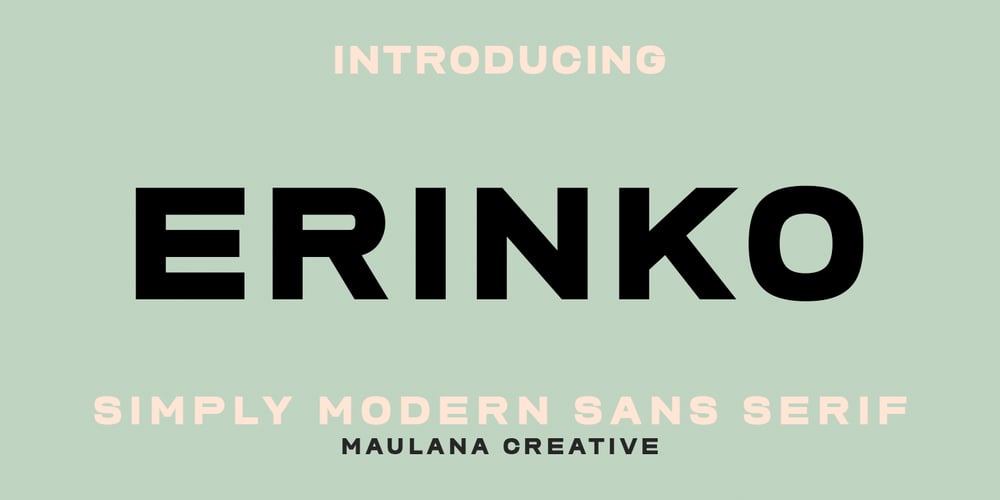
MC Erinko Font Family was designed by Gilang Maulana and published by Maulana Creative. MC Erinko contains 1 styles and family package options. Erinko is a simply semi-geometric sans serif font. With medium low contrast stroke, fun character with a bit of ligatures and alternates. To give you an extra creative work. Erinko font support multilingual more than 100+ language. This font is good for logo design, Social media, Movie Titles, Books Titles, a short text even a long text letter and good for your secondary text font with sans or serif. Make a stunning work with Erinko font. Cheers, Maulana Creative